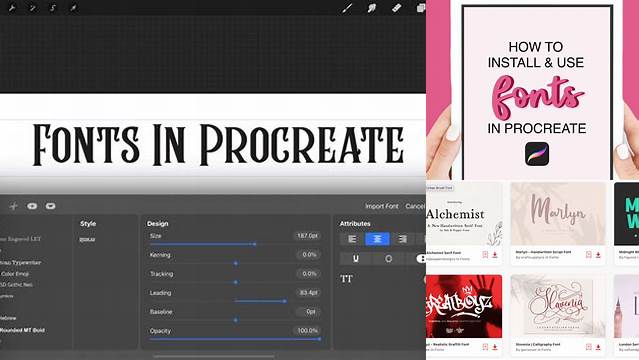
Procreate Fonts: Easy Installation Guide
Hey guys! Ever wondered how to really elevate your Procreate artwork with some unique typography? You're in the right place! Installing fonts on Procreate isn't just about adding text; it's about unlocking a whole new level of creative expression. Imagine your digital paintings or illustrations adorned with custom lettering that perfectly matches your artistic vision. It's a game-changer, trust me. This comprehensive guide is designed to walk you through every single step, from finding awesome fonts to actually getting them into your Procreate app, and even mastering their use. We'll cover everything from troubleshooting common issues to understanding licensing, making sure you're well-equipped to make the most out of your Procreate experience. So, grab your iPad and let's dive into the wonderful world of custom fonts in Procreate!
Why Install Custom Fonts in Procreate?
So, why bother with installing custom fonts on Procreate when there are already a bunch of default options available? Well, guys, the answer is simple: uniqueness and personalization. While Procreate comes with a decent selection of fonts, they’re generic, and frankly, everyone uses them. If you want your artwork to stand out, to truly reflect your individual style, then custom fonts are your secret weapon. Think about it: a specific font can evoke a particular mood, era, or feeling that a standard font just can't. It adds an incredible layer of professionalism and personality to your digital designs, whether you're creating invitations, social media graphics, book covers, or just some cool digital art for fun. It’s like having an infinite palette of typefaces at your fingertips, allowing you to perfectly match your text to your visual aesthetics.
Installing custom fonts on Procreate allows you to break free from creative limitations. Maybe you're working on a vintage-inspired piece and need a classic serif font, or perhaps a futuristic design demands a sleek, modern sans-serif. Maybe you're illustrating a children's book and require a playful, whimsical script. The default options often fall short in these very specific scenarios. By expanding your font library, you open up endless possibilities for branding, storytelling, and artistic expression that will genuinely make your work shine. It's about giving your art that extra 'oomph,' that professional polish that truly captures attention and communicates your message effectively. Plus, let's be real, it’s just super fun to experiment with new typefaces and see how they transform your designs. You’ll find yourself much more inspired when you have a vast array of beautiful fonts to choose from, directly within your favorite drawing app. This really is an essential step for any serious Procreate artist looking to elevate their game and create truly memorable pieces that resonate with their audience.
Where to Buy Premium Fonts for Procreate
While free fonts are fantastic, sometimes you just need that extra special typeface to really make your Procreate art pop, and that's where premium fonts for Procreate come into play. Investing in a quality premium font can elevate your designs to a whole new level of professionalism and uniqueness. These fonts are often meticulously crafted by professional typographers, offering superior design, extensive character sets, and a wider range of weights and styles. Plus, buying a font usually comes with a clear commercial license, which is super important if you're planning to sell your artwork or use it for client projects. It's about giving your work that polished, high-end feel that can truly set you apart. So, if you're ready to upgrade your font game, let's look at some of the best places to find these digital gems.
One of my absolute favorite marketplaces for premium fonts for Procreate is Creative Market. This site is a goldmine for designers, offering not just fonts but also graphics, templates, and other digital assets. The fonts on Creative Market are usually sold in bundles or individually, and you can find incredibly unique and stylish options that you won't see everywhere else. They also often come with extended licensing options, which is great for commercial use. Another top-tier platform is Fontspring. What makes Fontspring stand out is their clear and simple licensing terms – they pride themselves on 'worry-free licensing,' which is a huge relief when you're navigating the complexities of font usage. You can find high-quality fonts from independent foundries and established designers here. Lastly, don't forget about MyFonts, which boasts one of the largest selections of professional fonts globally, including typefaces from major foundries. While it can be a bit pricier, the quality and variety are unparalleled. When you're ready to take your Procreate typography seriously, investing in premium fonts for Procreate from these reputable sources is a fantastic way to ensure your artwork always looks its absolute best. You’re not just buying a font; you’re investing in a tool that enhances your entire creative output and helps your brand messaging shine.
Downloading Fonts Directly on iPad
Okay, guys, let's get practical! One of the easiest ways for downloading fonts directly on iPad for use in Procreate is by using your iPad's Safari browser and the Files app. This method is super convenient because it keeps everything native to your device, cutting out the need for a computer. It’s perfect for when you find that perfect font on the go and want to get it into your Procreate project right away. The key here is understanding how your iPad handles downloaded files and knowing where to look for them. This process is generally straightforward once you get the hang of it, and it eliminates any unnecessary steps that might complicate your workflow. We want to keep it simple and efficient, right?